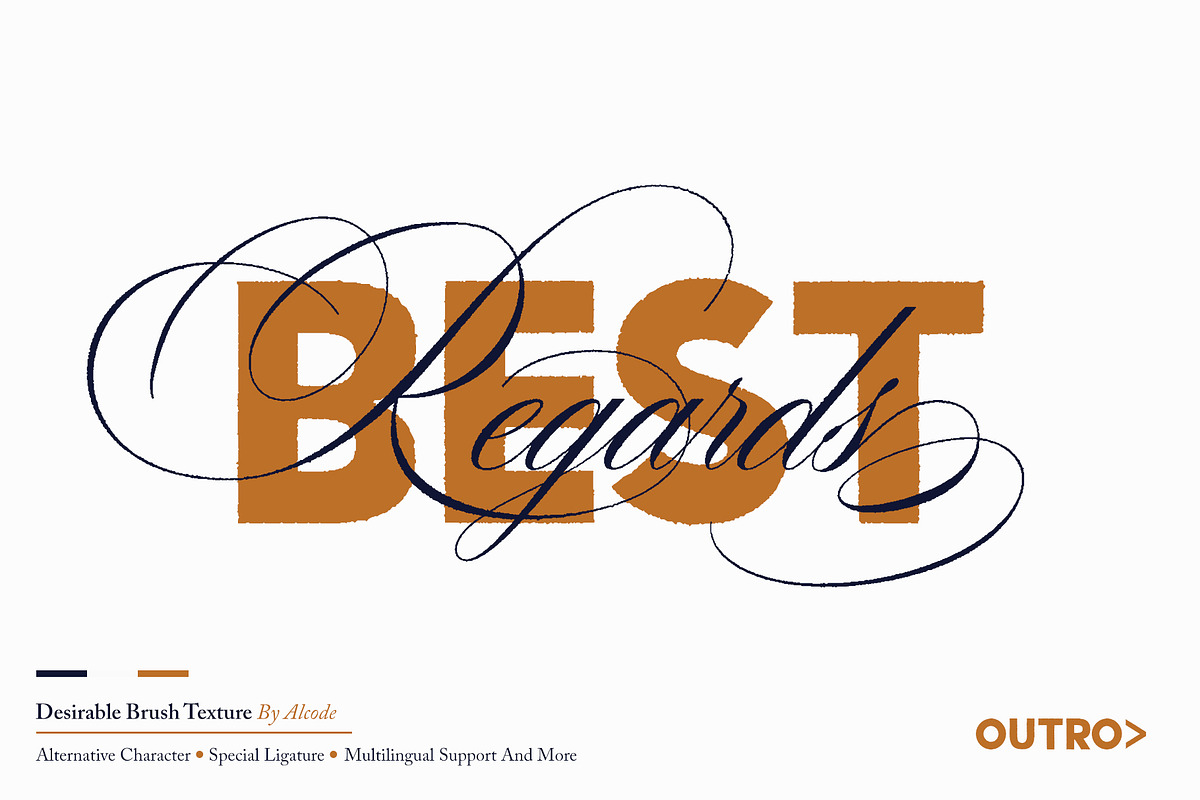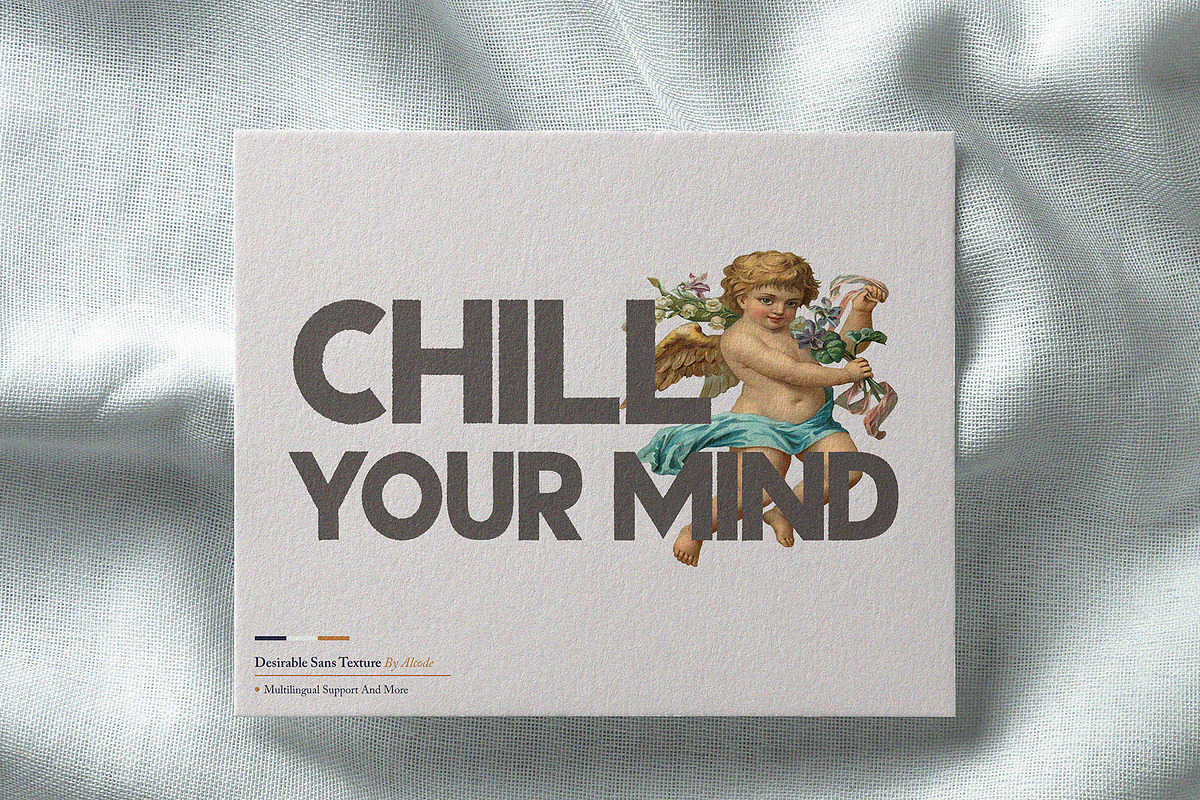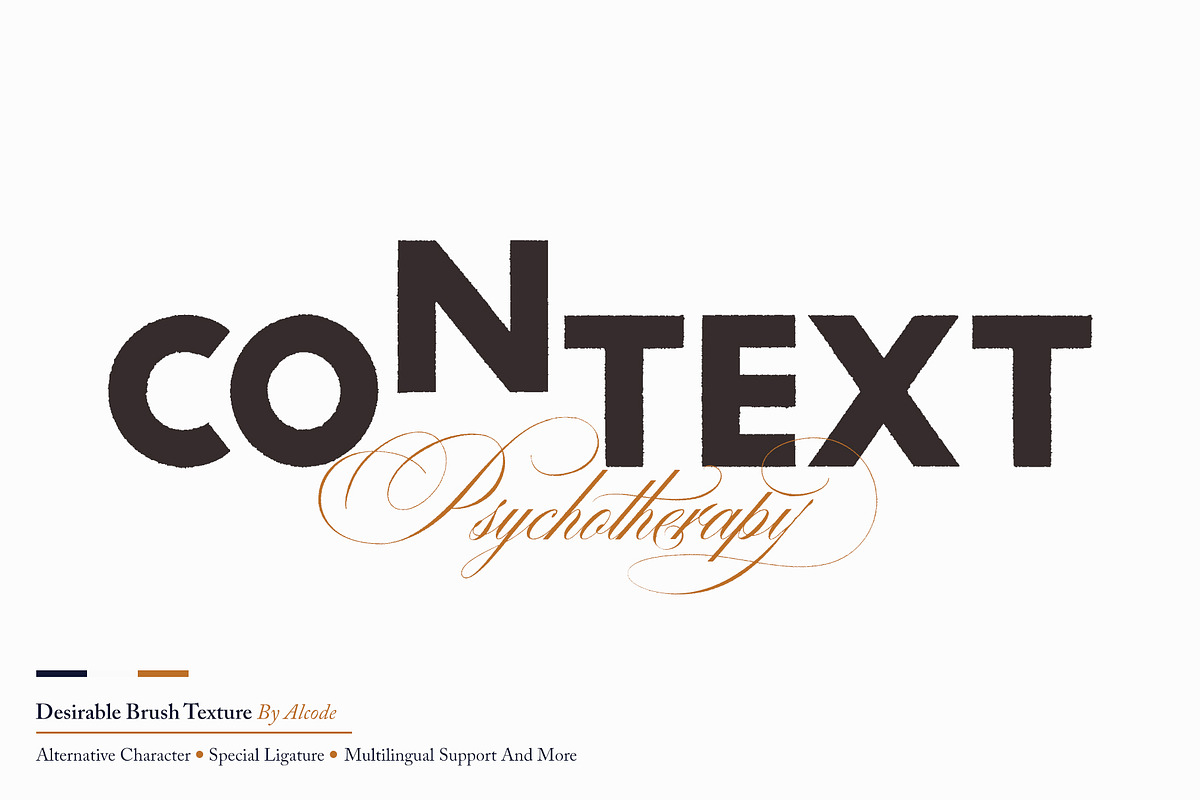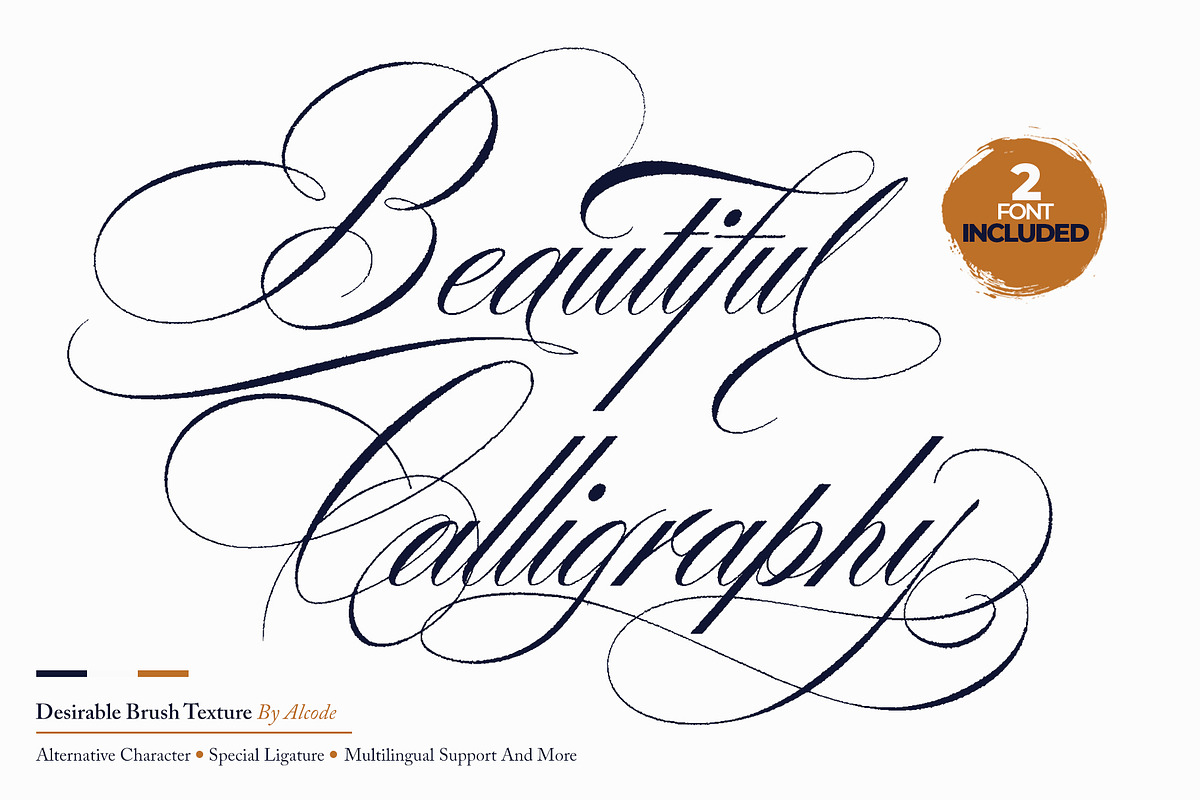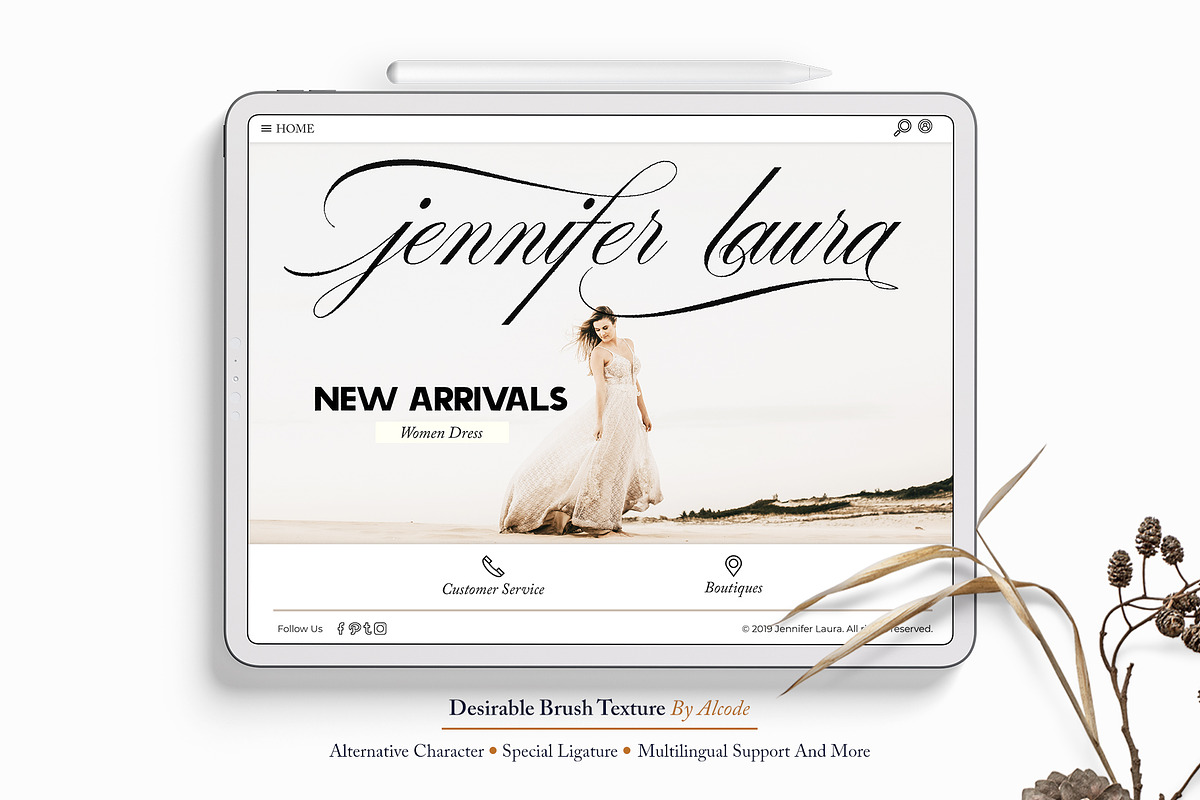
Desirable Brush Texture
Desirable Brush Texture is a brush version of desirable solid released in 2019. With a classic style and an elegant touch, inspired by Italian women's handwriting and ancient manuscripts. These two fonts are carefully designed to work together in harmony making them perfect for wedding media, book covers, greeting cards, logos, branding, business cards and certificates, even for any design work that requires classic, formal or extravagant.
Try Desirable Brush Texture, enjoy the richness of the features and let her fun and elegant excitement make you happy and enhance your creativity! You can use this font very easily.
Multilingual Support And Special Ligatures